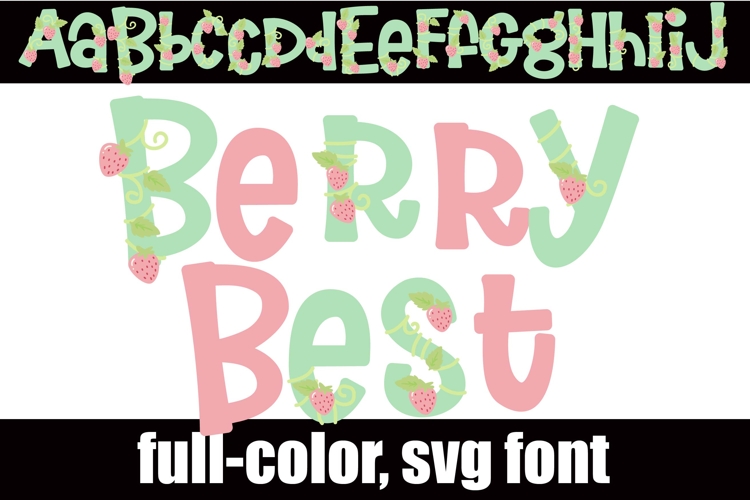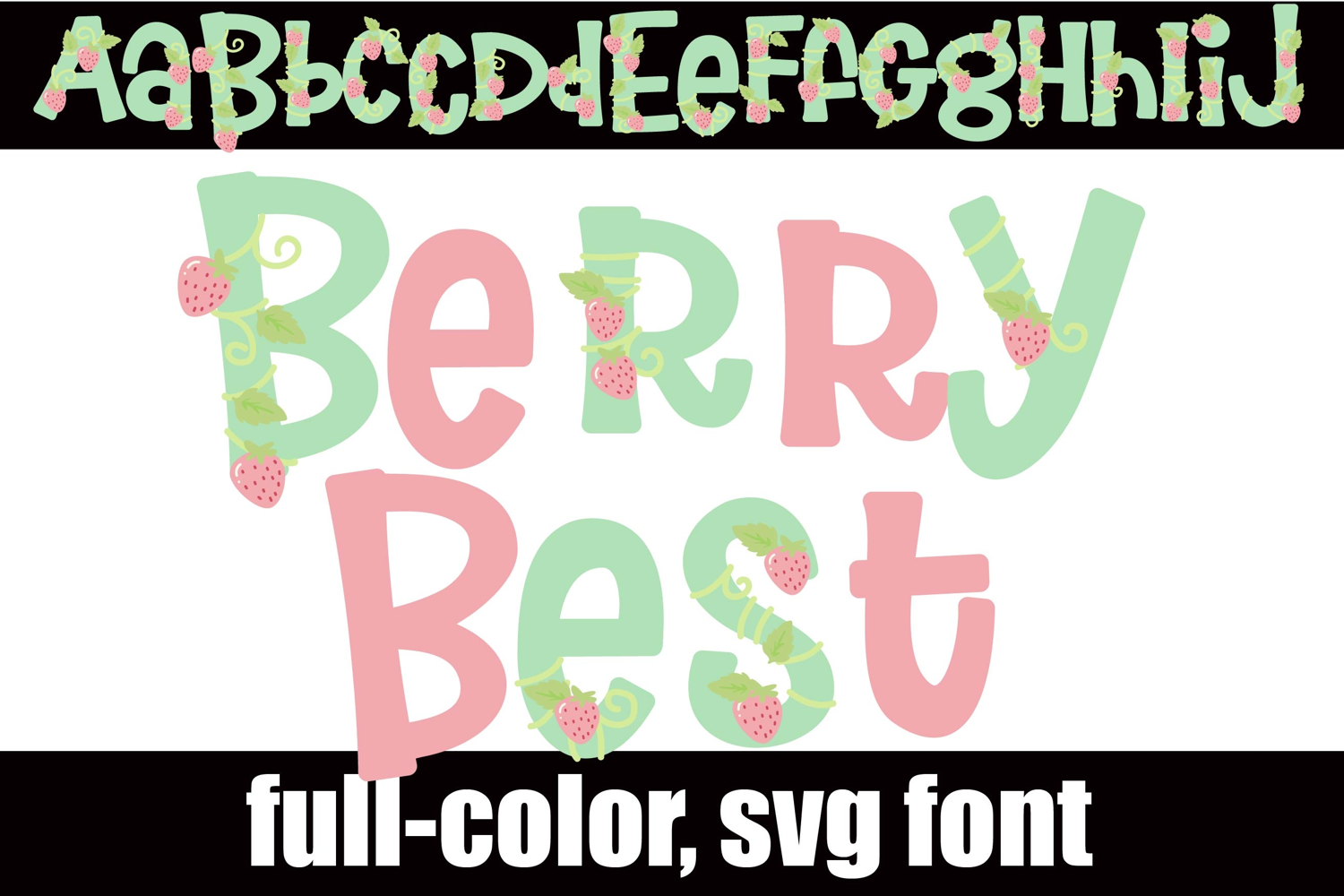
Berry Best Pastel Color Font
This full-color, a whimsical sans serif with letters wrapped in strawberry vines. There is an alt case of additional colors of each letter that you can access through your system's character map.